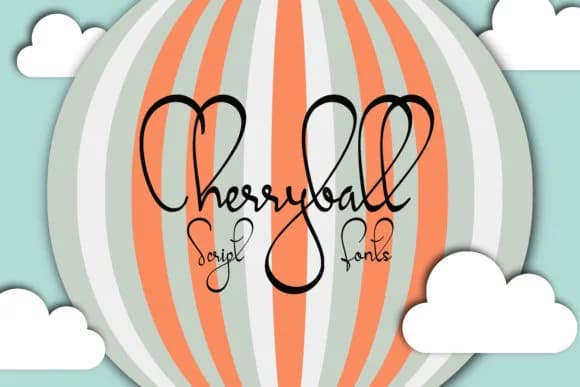
Cherryball by emanesdsign is a playful script font that brings genuine energy and movement to any project. The letterforms carry an organic, hand-drawn quality that feels both contemporary and genuinely approachable, making it a strong choice when you want personality and character without veering into precious territory.
This font delivers real results for wedding invitation suites where understated elegance mixed with warmth matters most. Etsy product labels on handmade goods look fantastic in Cherryball, since the forms catch the eye without competing with the product itself. Boutique skincare packaging and natural beauty branding also suit the style perfectly, as the bouncy rhythm feels organic rather than overly designed. DIY craft signage, greeting cards, and social media graphics all benefit from its friendly, approachable presence. Freelance designers and small business owners especially appreciate how Cherryball can anchor an entire brand identity without demanding excessive customization.
Cherryball Font is a script font that shines as a display or heading face. Pair it with a clean sans-serif or serif font for body text β the contrast creates a clear hierarchy while the two styles stay balanced and easy to read.
Cherryball Font